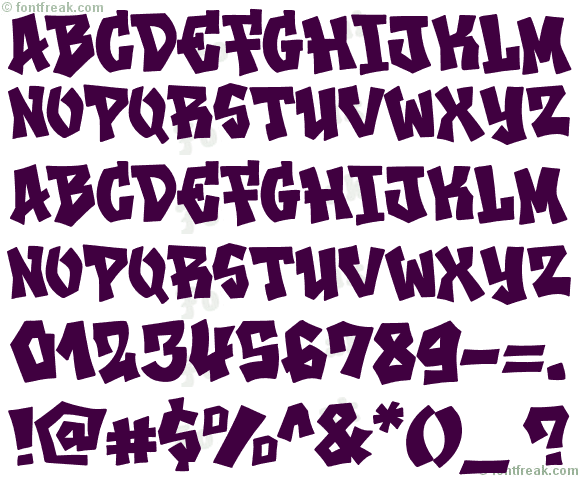
Next Bravo
About Next Bravo
Next Bravo by Syaf Rizal is a striking display font that embodies a bold and modern aesthetic. This typeface stands out with its chunky, angular letterforms that convey a sense of energy and movement. The heavy stroke weight and minimal contrast give it a robust appearance, making it perfect for attention-grabbing headlines and titles. The letters are spaced widely, enhancing readability and allowing for a dynamic visual flow. The font’s distinctive style is further accentuated by its playful yet strong decorative elements, which add an artistic touch without overwhelming the design.
Due to its unique characteristics, Next Bravo is particularly well-suited for a variety of creative applications. It works wonderfully for event posters, where its eye-catching design can draw in attendees. Additionally, it is an excellent choice for branding small businesses that want to project a modern and distinctive identity. The font is also ideal for social media graphics, making it a favorite among content creators who seek to stand out in crowded feeds. Furthermore, its bold style makes it great for merchandise designs, where visibility is key.
The target audience for Next Bravo includes graphic designers, small business owners, and content creators looking for a font that adds flair and personality to their projects. Its versatility allows for creative freedom across different mediums, from digital to print.
What sets Next Bravo apart is its ability to blend artistic flair with functional design. This font not only captures attention but also communicates a sense of modernity and style, making it a valuable addition to any designer's toolkit. For those interested in incorporating this unique typeface into their work, the Next Bravo font free download is a fantastic opportunity to explore its potential.